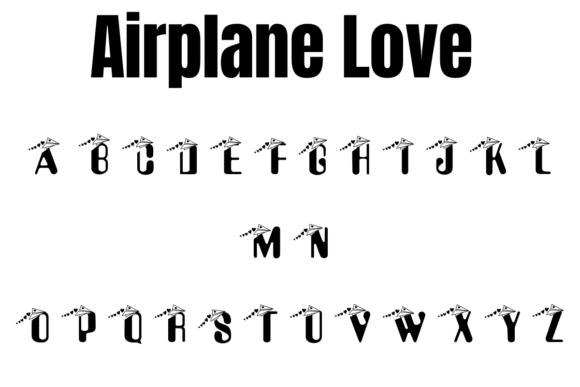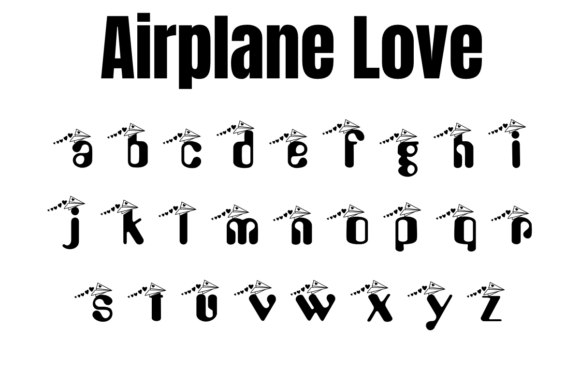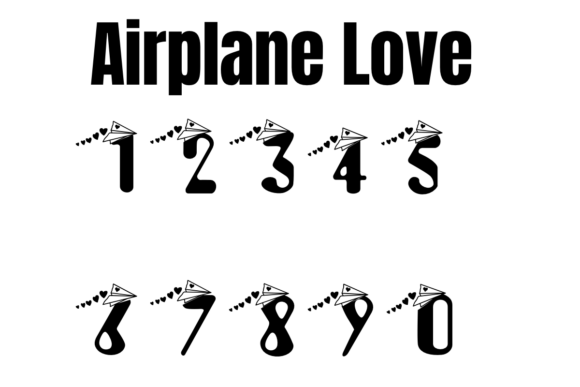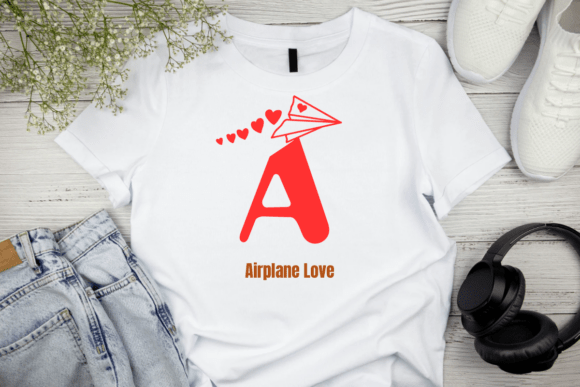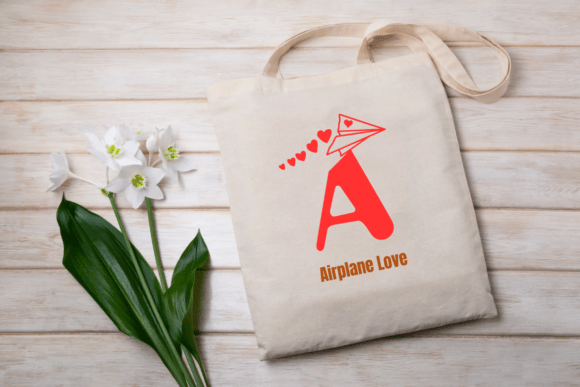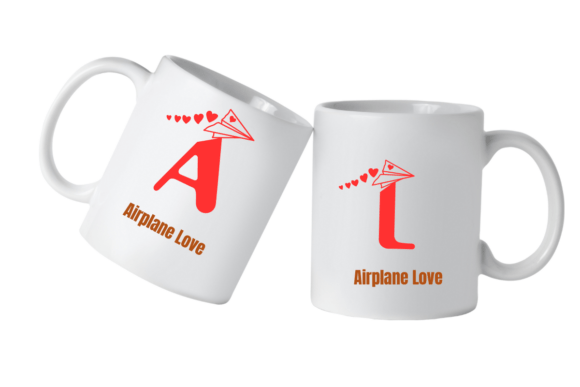
Introducing Airplane Love Font: Elevate Your Designs with Whimsy and Charm
Are you tired of using the same old fonts for your projects? Do you want to add a touch of whimsy and romance to your designs? Look no further than the Airplane Love Font, a delightful and decorative typeface that’s sure to take your creations to new heights.
What is Airplane Love Font?
Airplane Love is a unique and creative font that features adorable paper airplane and heart accents built directly into the letters. This charming typeface is perfect for designs centered around travel, adventure, romance, or sending a special greeting. Whether you’re working on a Valentine’s Day card, travel blog, wedding invitation, or sweet apparel, Airplane Love Font is the ideal choice.
Key Features of Airplane Love Font
- Whimsical Design: The font features playful paper airplane and heart accents that add a touch of whimsy to your designs.
- Decorative Letters: Each letter is carefully crafted with adorable accents, making it perfect for designs that need a personal touch.
- Versatile: Airplane Love Font can be used for a variety of projects, from Valentine’s Day cards to travel blogs and wedding invitations.
- Handmade Feel: The font has a charming, handmade feel that’s sure to make your designs stand out.
- Memorable: The unique design of Airplane Love Font makes it easy to remember and will leave a lasting impression on your audience.
Airplane Love Font is a dream come true for designers and crafters who want to add a personal touch to their projects. Whether you’re creating digital content or handmade crafts, this font is sure to inspire your creativity. Use it to:
- Create unique and eye-catching Valentine’s Day cards and gifts.
- Add a touch of adventure to travel blogs and websites.
- Design beautiful and romantic wedding invitations and stationery.
- Make sweet and charming apparel, such as t-shirts and tote bags.
Why Choose Airplane Love Font?
With so many fonts available, why choose Airplane Love Font? Here are just a few reasons:
- Unique Design: Airplane Love Font has a one-of-a-kind design that’s sure to make your projects stand out.
- High-Quality: The font is created with high-quality vectors, ensuring that it looks great in any size or resolution.
Tips for Using Airplane Love Font
To get the most out of Airplane Love Font, here are a few tips:
- Experiment with Sizes: Try using the font in different sizes to see how it looks in various contexts.
- Pair with Other Fonts: Airplane Love Font pairs well with other fonts, so don’t be afraid to experiment with different combinations.
- Use in Combination with Images: The font looks great when used in combination with images, especially those related to travel and romance.
- Make it Your Own: Don’t be afraid to add your own personal touch to your designs by experimenting with different colors and textures.
Airplane Love Font is a unique and charming typeface that’s sure to take your designs to new heights. With its whimsical design, decorative letters, and versatile uses, it’s the perfect choice for designers and crafters who want to add a personal touch to their projects. Whether you’re working on a Valentine’s Day card, travel blog, or wedding invitation, Airplane Love Font is sure to inspire your creativity and leave a lasting impression on your audience.